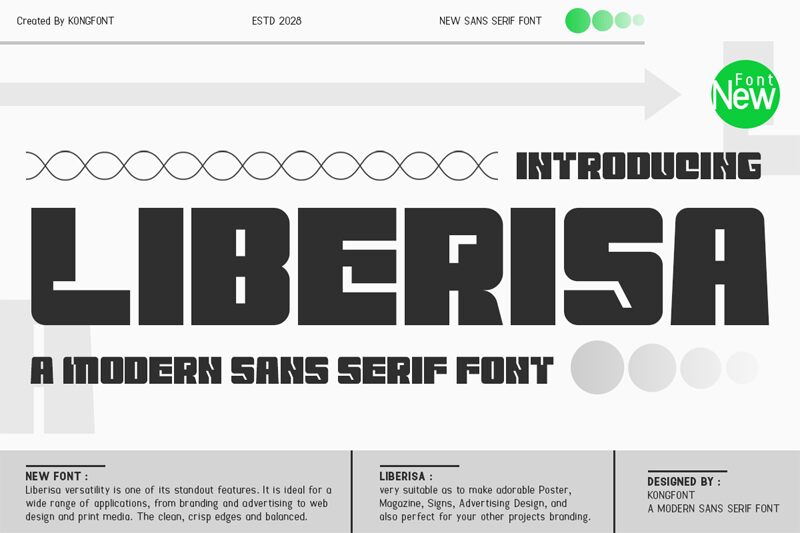
Liberisa font by Kong Font is a free techno display typeface with a heavy, blocky build that hits like a stamped metal logo. Its squared counters, chopped corners, and tight, almost welded spacing give every word a solid, industrial weight, while the uniform height keeps it clean and readable even at a quick glance. The letters feel like they’ve been carved out of a single dark slab—bold, compact, and unapologetically loud.
Using Liberisa, titles instantly take on a futuristic, powerhouse attitude that shines on gaming logos, esports branding, sci-fi posters, tech event flyers, YouTube thumbnails, and app splash screens. This free font thrives at large sizes, where its chunky forms and sharp cuts can really show off. For longer supporting text, pair Liberisa with a simple geometric sans in a lighter weight to keep the message clear without losing that hard-edged, techno energy.